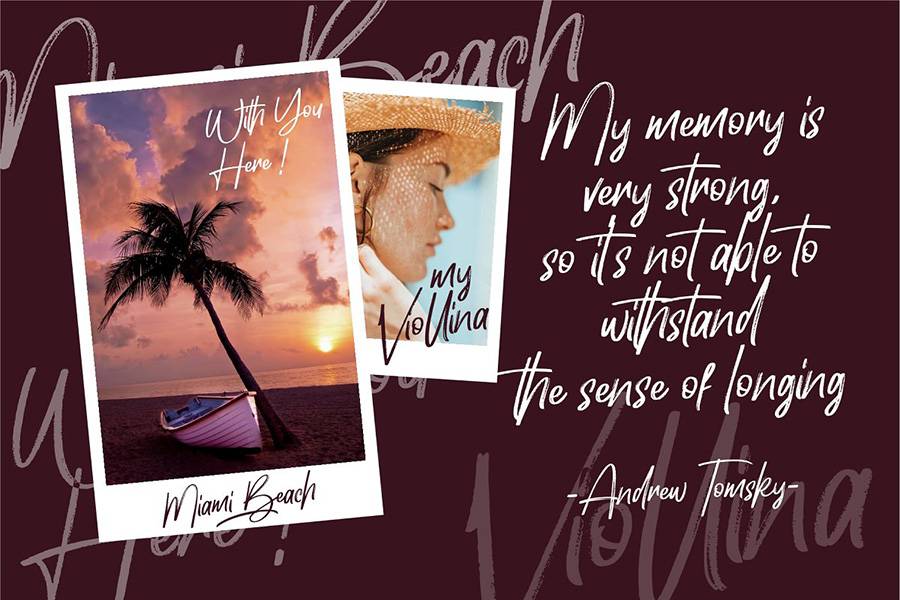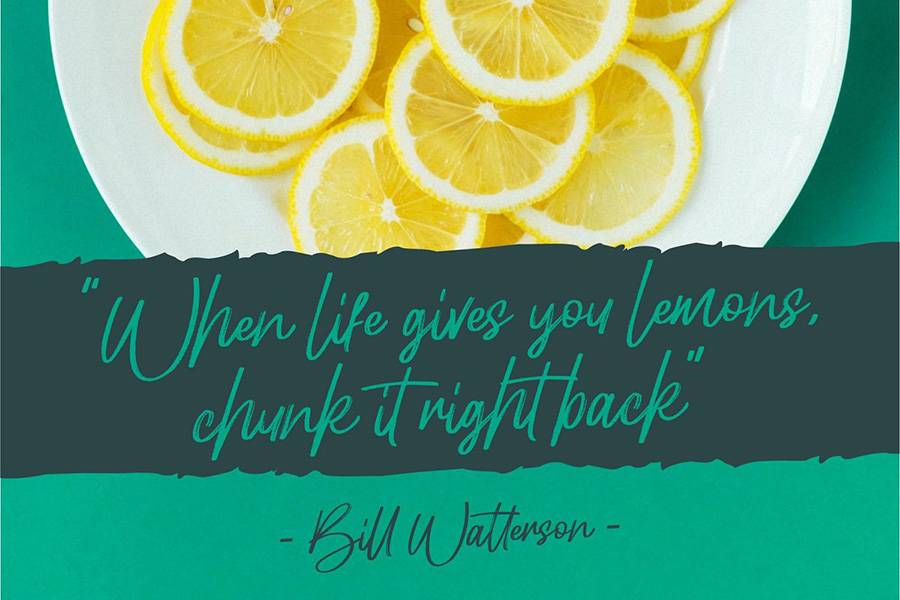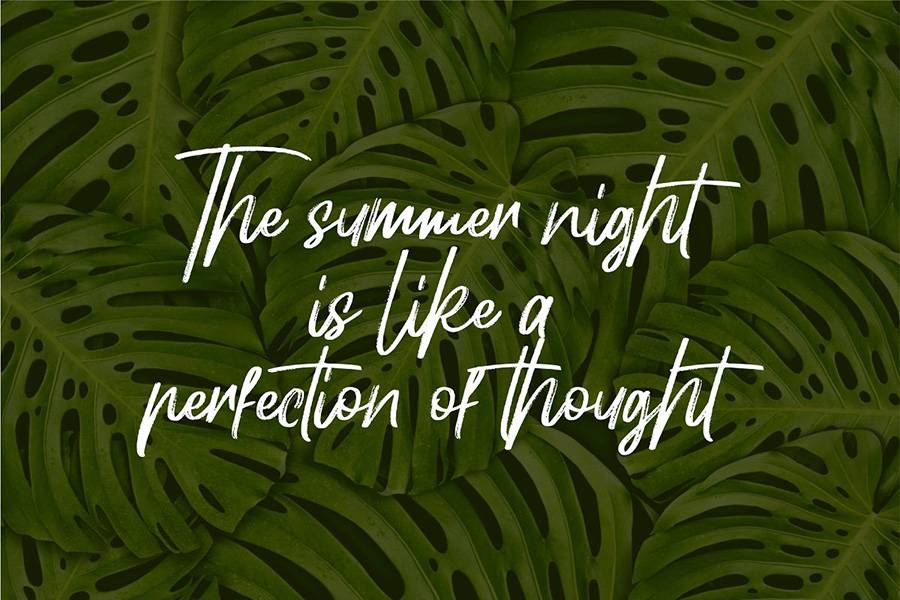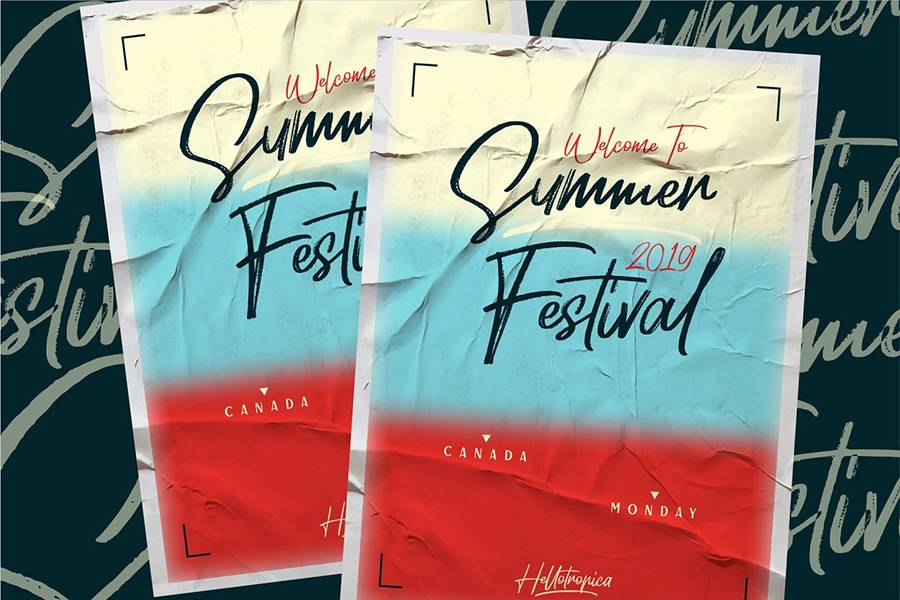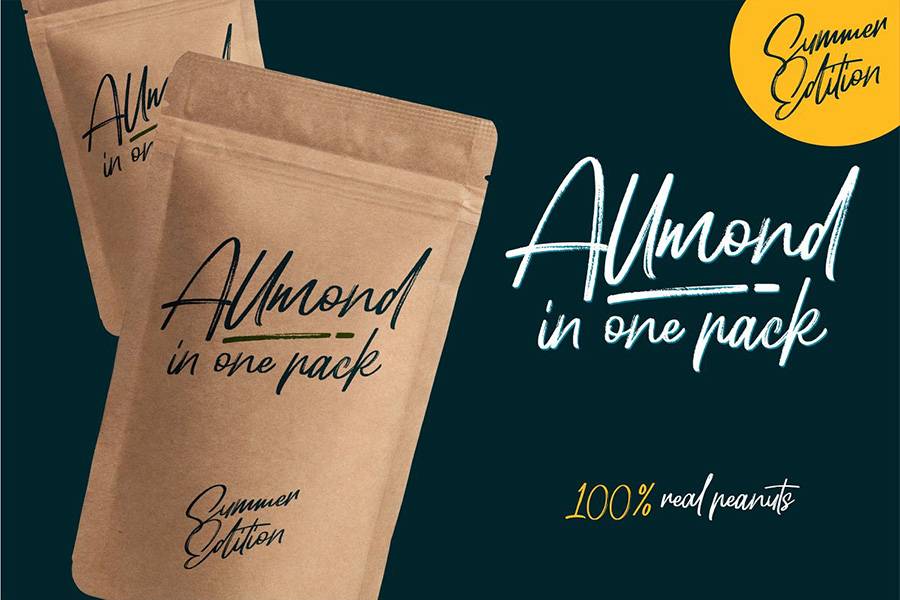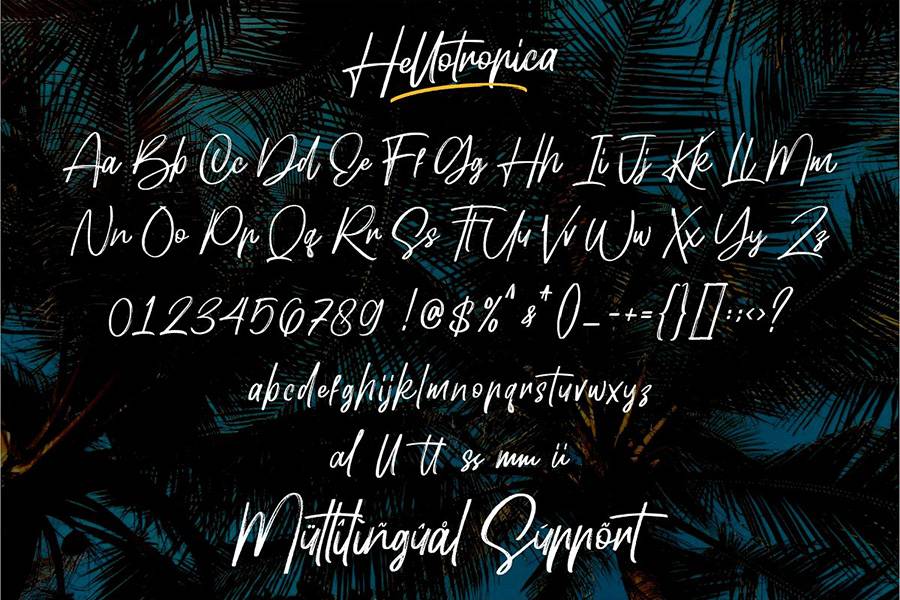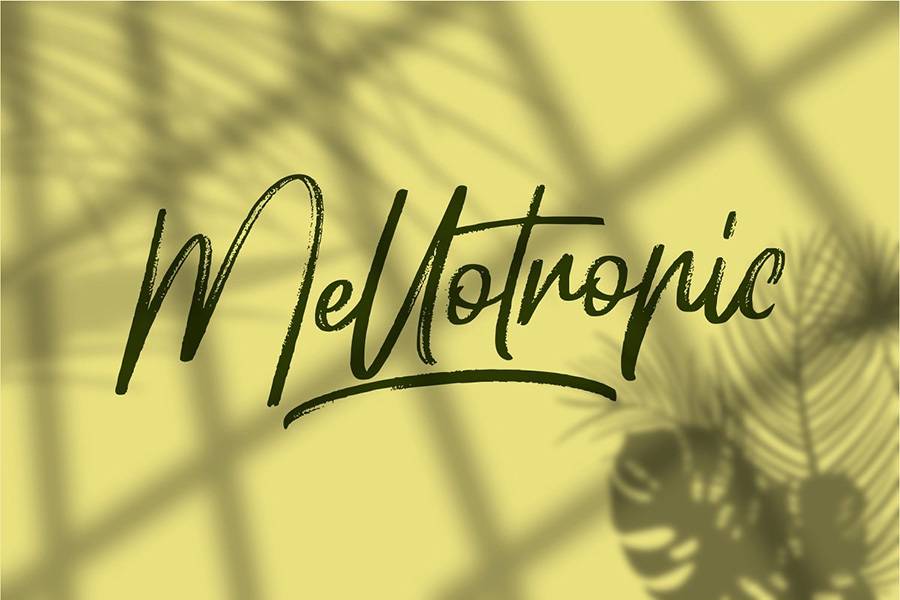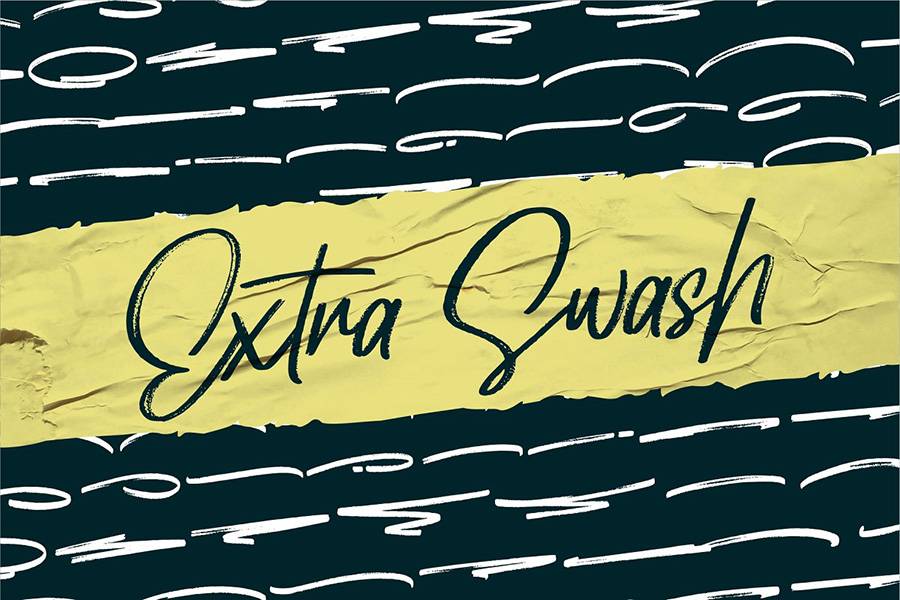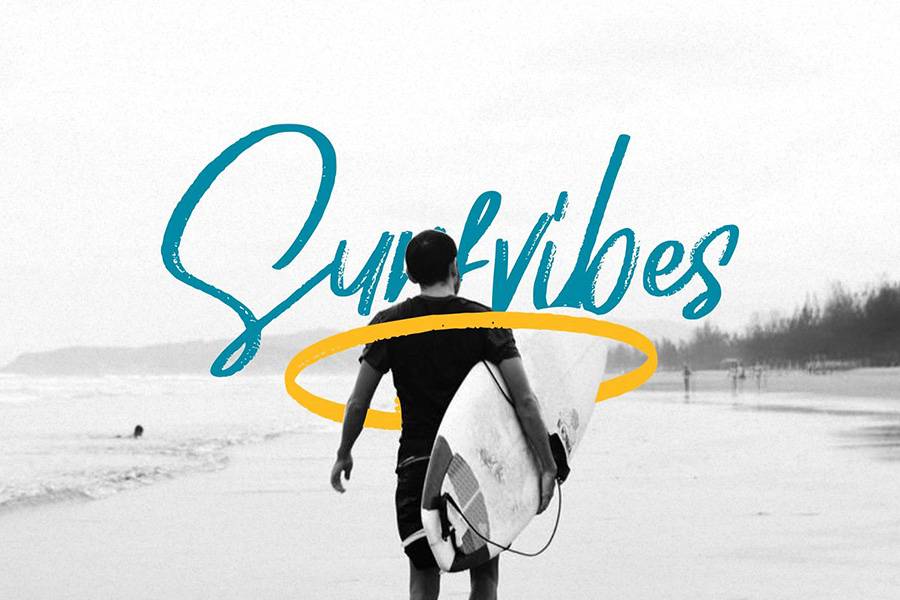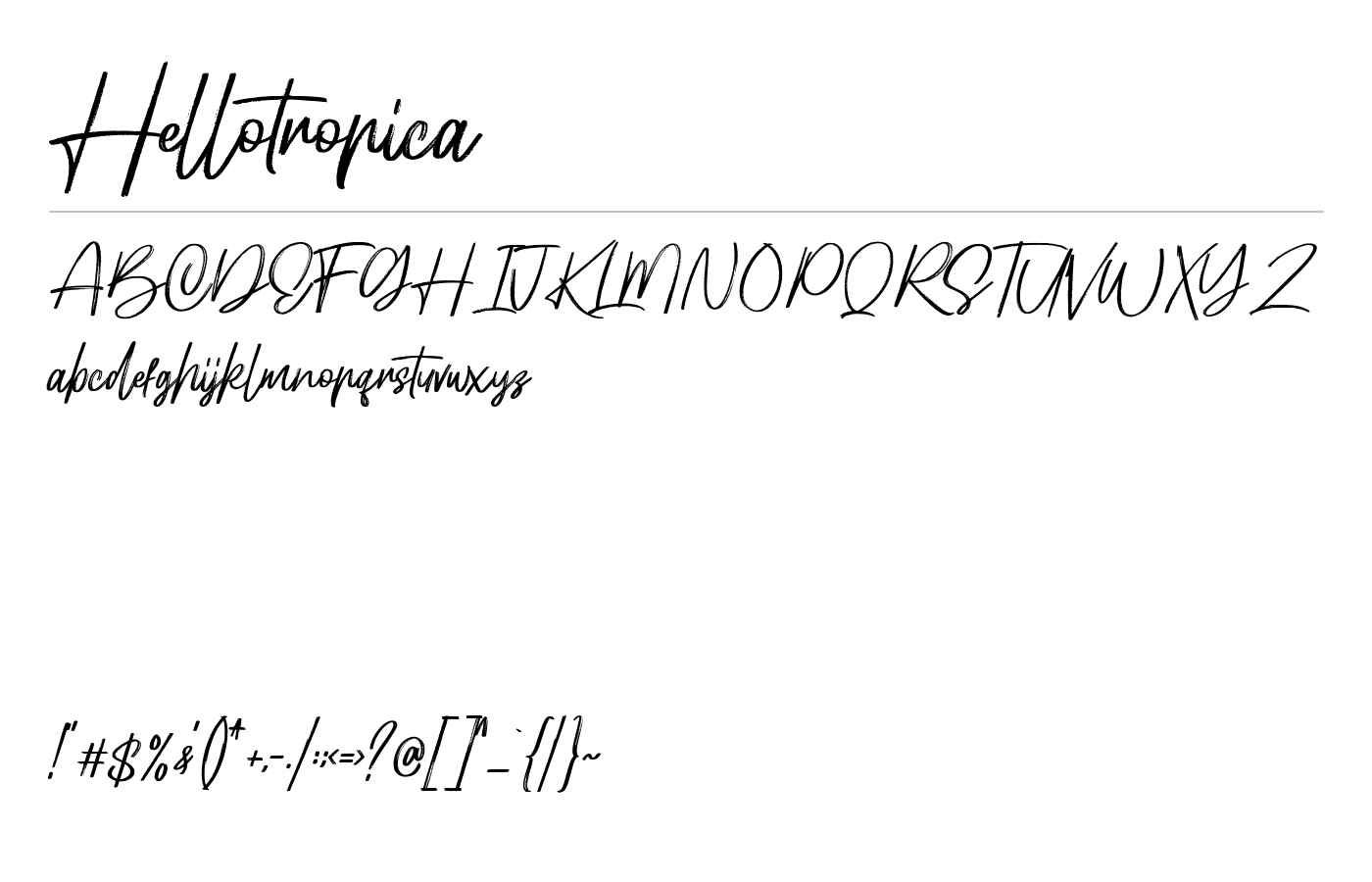
Hellotropica Handbrush is a lively and elegant script font with a hand-painted feel, featuring tall, slender letterforms and an energetic, slightly textured stroke that mimics authentic brushwork. Its playful yet stylish character makes it ideal for branding, invitations, and creative projects where a personal, artistic touch is desired. This font works especially well in headlines and logos, adding a modern, handcrafted flair that stands out with its casual sophistication.
Hellotropica Handbrush Font
About Hellotropica Handbrush Font